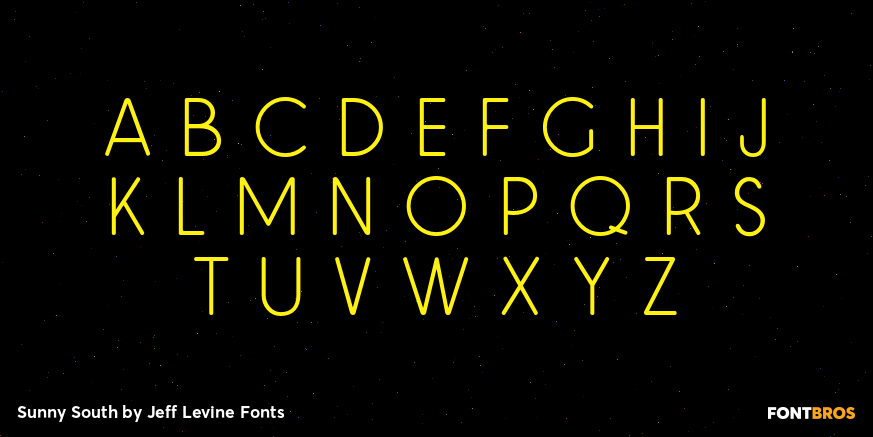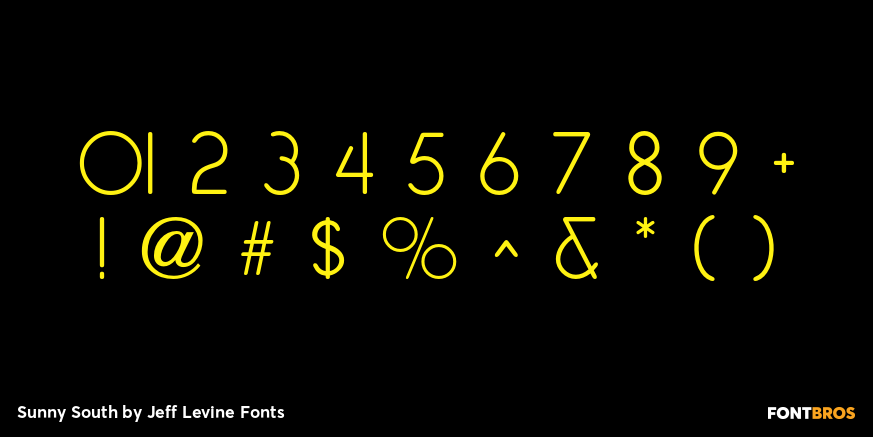
Sunny South
Sunny South JNL is a cheerful, simple sans lettering design with rounded terminals.
Stripping away the drop shadow of the limited character set Shadowland JNL (which was originally inspired by examples of wood type), Sunny South JNL now offers a complete character set.